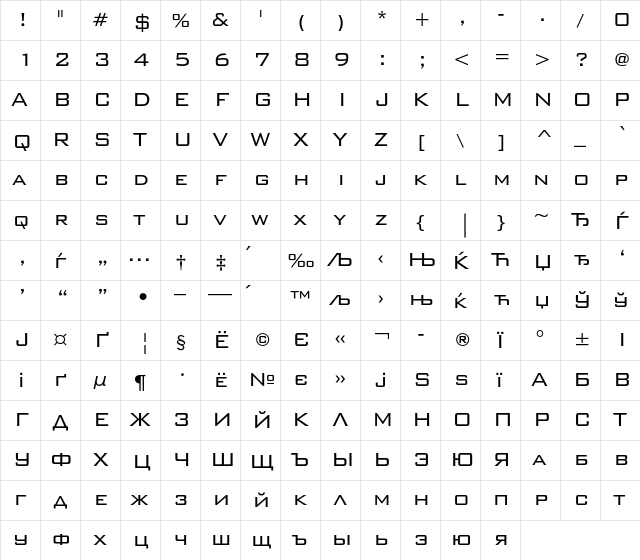
BankGothicCLtBT Regular
Design Context for BankGothicCLtBT Typeface
BankGothicCLtBT takes a clean, functional approach — its unadorned letterforms prioritise legibility and work reliably across screen and print environments.
Font Pairing: Works well alongside a characterful serif or display font that can carry the expressive load while BankGothicCLtBT handles the functional copy.
Pro Tip: Use BankGothicCLtBT for UI labels, navigation, and short-form body copy where clean legibility is the priority.